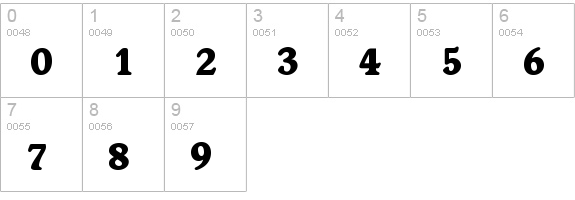
WorchesterEF-ExtraBold Font Details
WorchesterEF-ExtraBold is an extra-heavy, attention-grabbing variant in the WorchesterEF typeface family \xE2\x80\x94 well suited to high-impact headlines, posters, and bold branding.